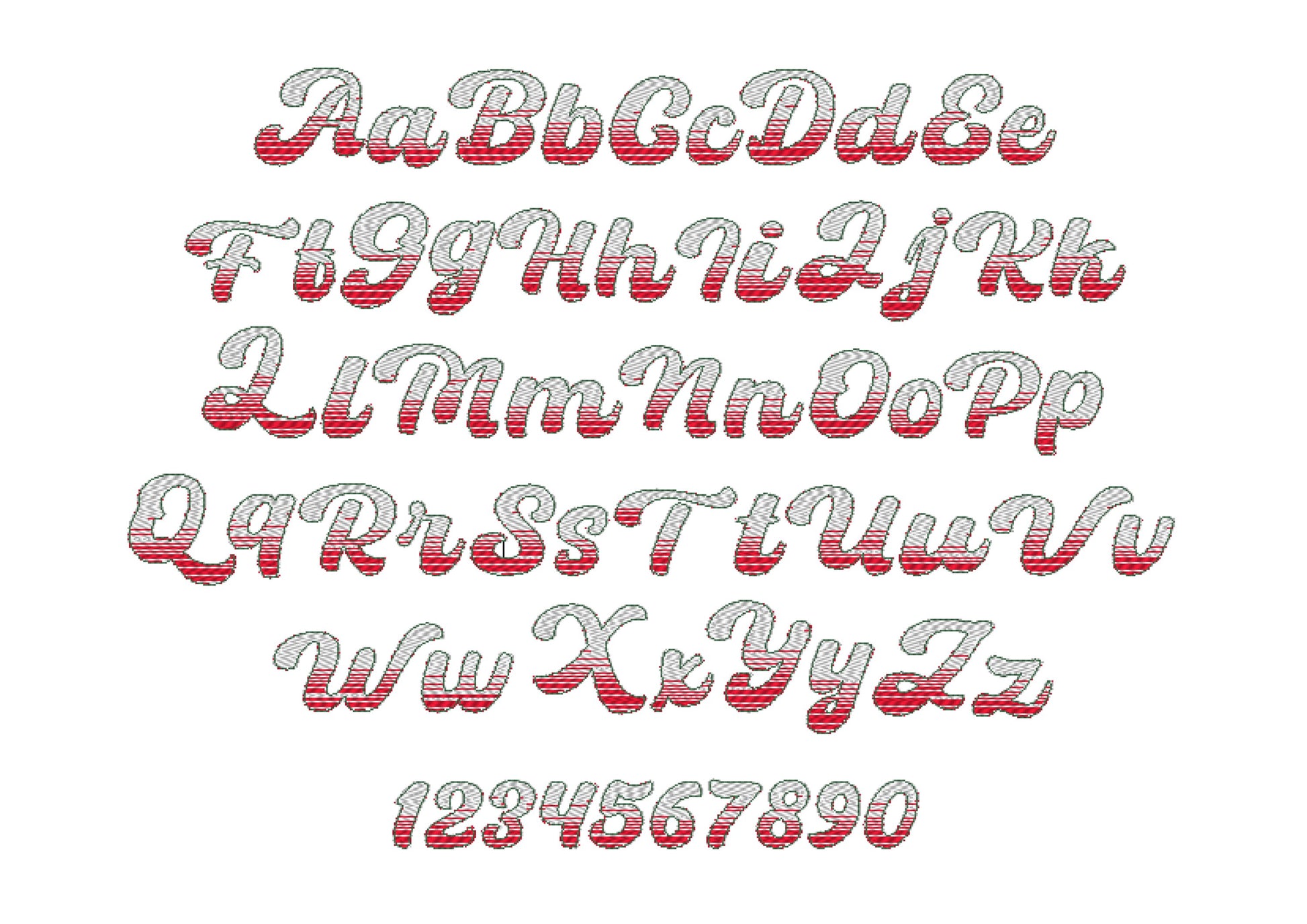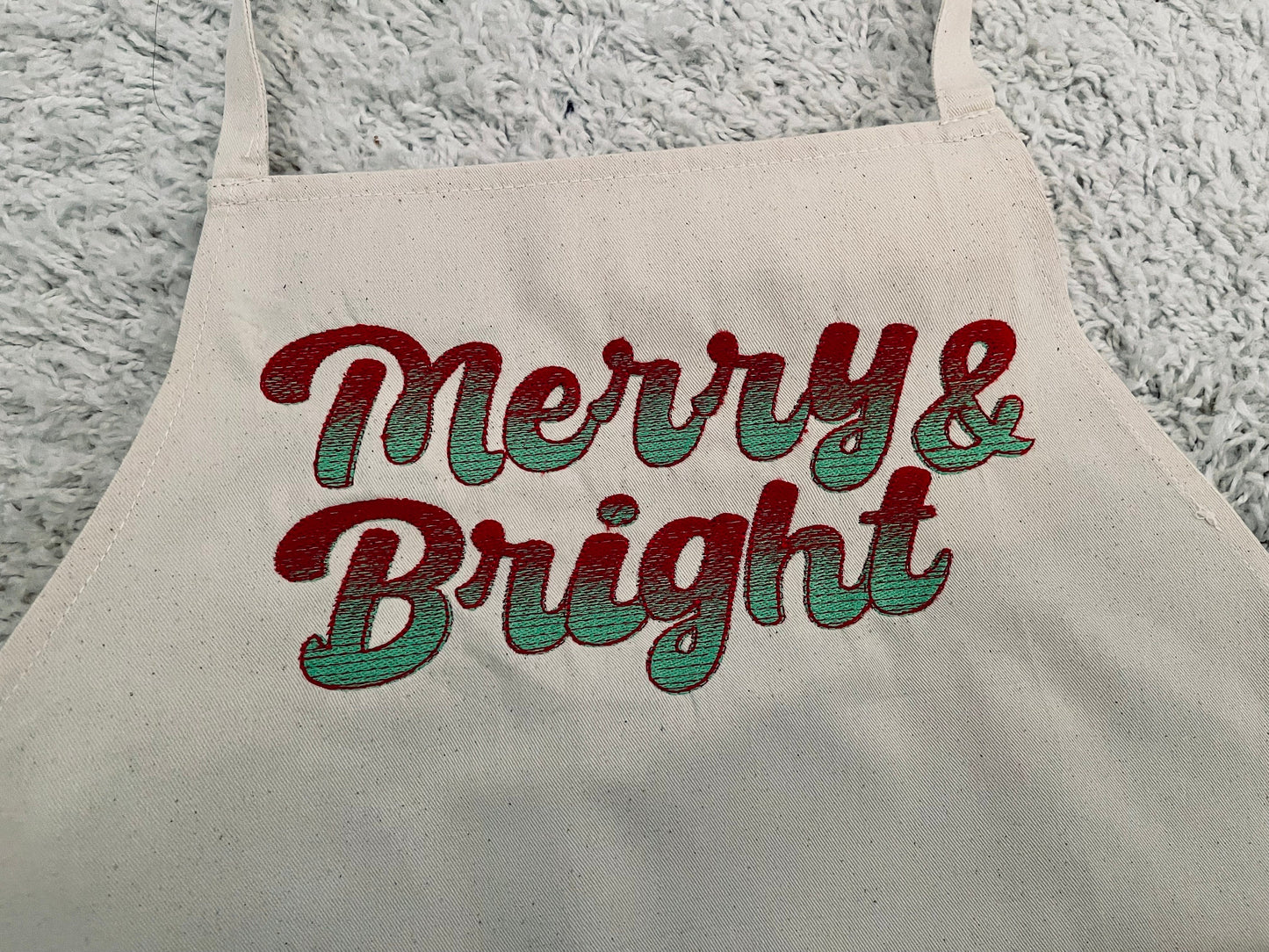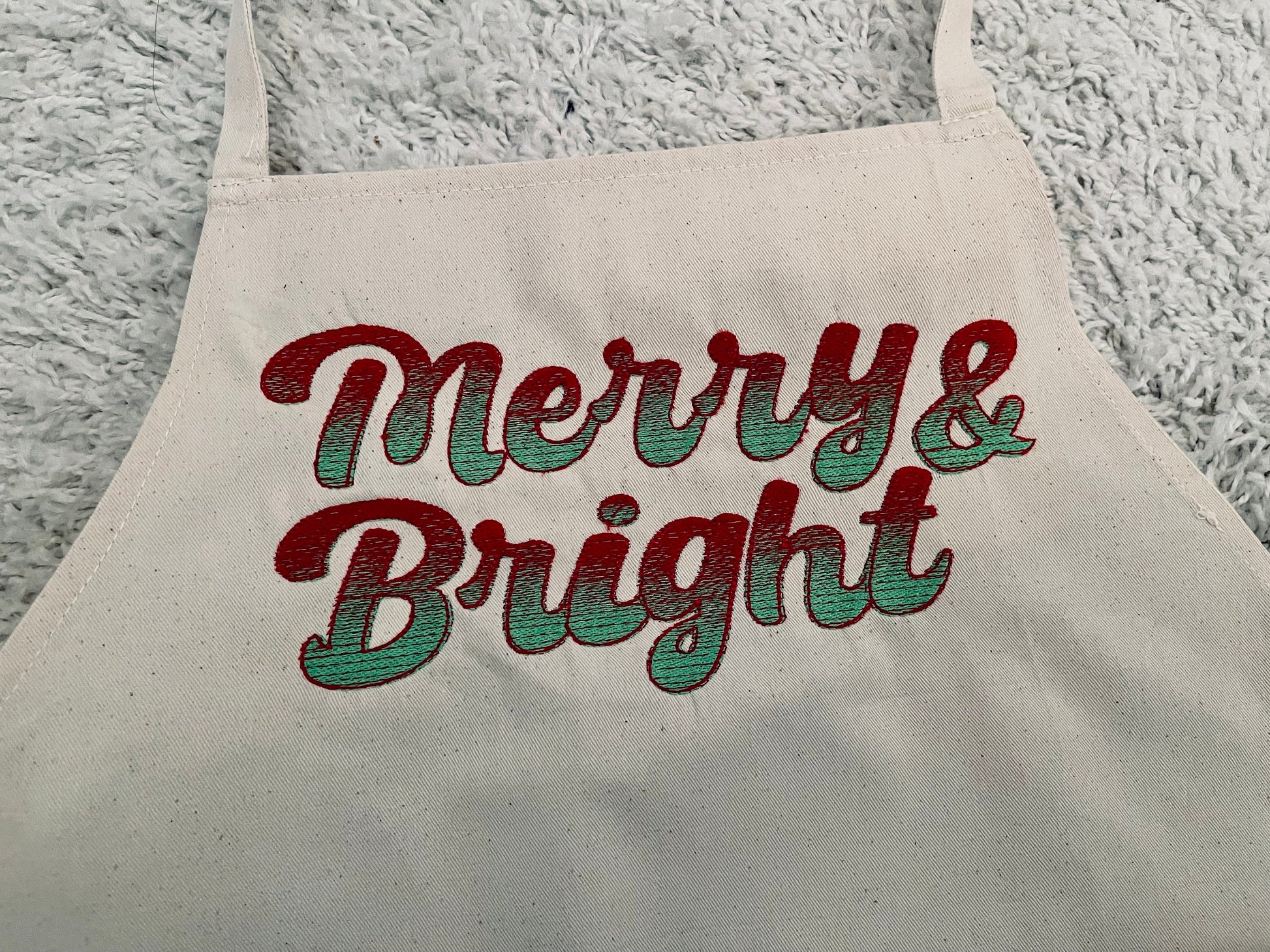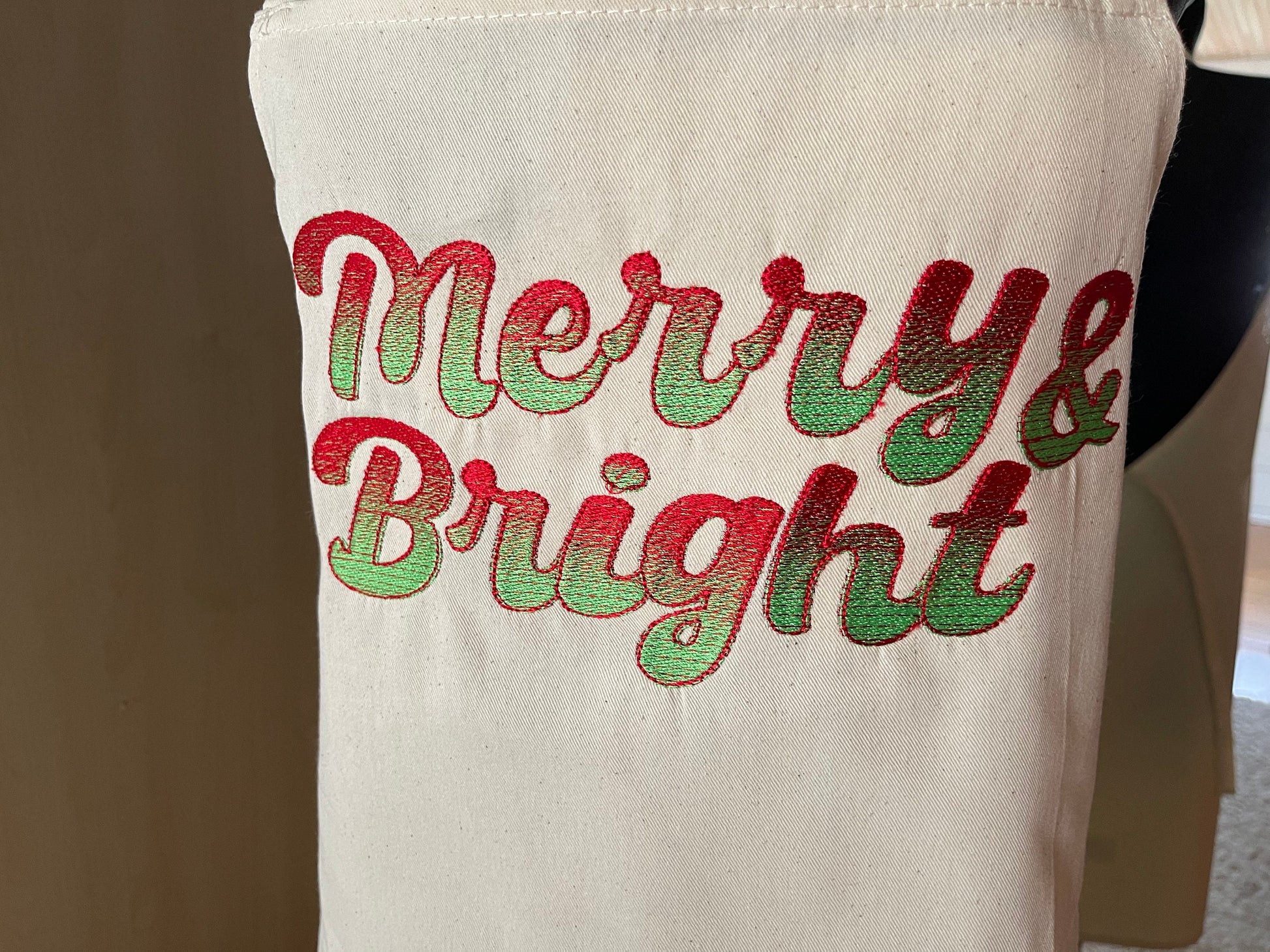
Uppercase and lowercase letters, numbers 0 to 9 and punctuation in six small sizes: 0.6, 0.8, 1, 1.3, 1.5 and 1.8 inches. One side of each letter is stitched in one color and the other side in the second.